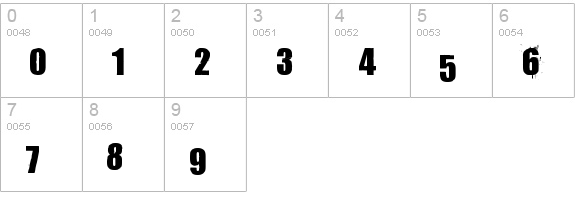
Living Hell Font Details
Introducing Living Hell font, a striking display typeface designed to bring a touch of darkness and intensity to your projects. With its bold and edgy design, Living Hell is perfect for creating eye-catching headlines, posters, and branding materials that demand attention. This font exudes a sense of mystery and intrigue, making it ideal for projects that require a touch of the unconventional. What sets Living Hell font apart is its unique blend of sharp angles and intricate details, giving it a distinct and captivating look. Whether you're working on a horror-themed design or simply want to add a touch of drama to your work, Living Hell font is sure to make a lasting impression. The best part? Living Hell font is available for free download at FontsMarket.com, making it accessible to designers and creatives looking to add a touch of the macabre to their projects without breaking the bank. So why wait? Download Living Hell font today and unleash its dark and powerful energy in your next design project.